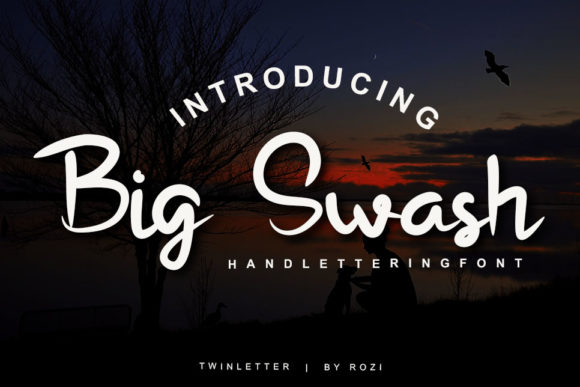
Introducing Big Swash Font: The Perfect Blend of Elegance and Whimsy
In the world of typography, fonts play a crucial role in conveying the tone and personality of a brand or design. With the vast array of fonts available, it can be challenging to find the perfect one that exudes elegance, sophistication, and friendliness. However, look no further than Big Swash Font, a whimsical script font that embodies the perfect blend of timeless elegance and authentic calligraphy.
What is Big Swash Font?
Big Swash is a carefully crafted script font that boasts an incredibly classic style while maintaining a friendly feel. This beautiful font is designed to add a touch of elegance to any design, making it perfect for creating original and outstanding designs. With its unique blend of traditional and modern elements, Big Swash Font is sure to make your designs stand out from the crowd.
The Characteristics of Big Swash Font
So, what makes Big Swash Font so special? Here are some of its key characteristics:
- Timeless Elegance: Big Swash Font exudes a sense of timeless elegance, making it perfect for designs that require a touch of sophistication.
- Authentic Calligraphy: This font features authentic calligraphy elements, giving it a unique and personal touch.
- Classic Style: Big Swash Font boasts a classic style that is reminiscent of traditional typography.
- Friendly Feel: Despite its elegant and classic style, Big Swash Font still manages to convey a friendly and approachable feel.
The Benefits of Using Big Swash Font
So, why should you choose Big Swash Font for your designs? Here are some of the benefits of using this beautiful font:
- Unique and Original: Big Swash Font is a unique and original font that will help your designs stand out from the crowd.
- Versatile: This font is versatile and can be used for a wide range of designs, from wedding invitations to branding and advertising.
- Elegant and Sophisticated: Big Swash Font adds a touch of elegance and sophistication to any design, making it perfect for high-end brands and luxury products.
- Easy to Read: Despite its elegant style, Big Swash Font is easy to read, making it perfect for body text and headlines.
How to Use Big Swash Font
Using Big Swash Font is easy and straightforward. Here are some tips on how to get the most out of this beautiful font:
- Pair it with Other Fonts: Big Swash Font pairs well with other fonts, so don’t be afraid to experiment with different combinations.
- Use it for Headlines and Titles: This font is perfect for headlines and titles, where you want to make a bold statement.
- Add a Personal Touch: Big Swash Font features authentic calligraphy elements, so don’t be afraid to add a personal touch to your designs.
In conclusion, Big Swash Font is a beautiful and elegant script font that is perfect for creating original and outstanding designs. With its timeless elegance, authentic calligraphy, and friendly feel, this font is sure to make your designs stand out from the crowd. Whether you’re a designer, artist, or simply someone who appreciates beautiful typography, Big Swash Font is a must-have font in your collection.
- What is Big Swash Font?: Big Swash Font is a whimsical script font that embodies the perfect blend of timeless elegance and authentic calligraphy.
- What is Big Swash Font used for?: Big Swash Font can be used for a wide range of designs, from wedding invitations to branding and advertising.
- Is Big Swash Font easy to read?: Yes, Big Swash Font is easy to read, making it perfect for body text and headlines.